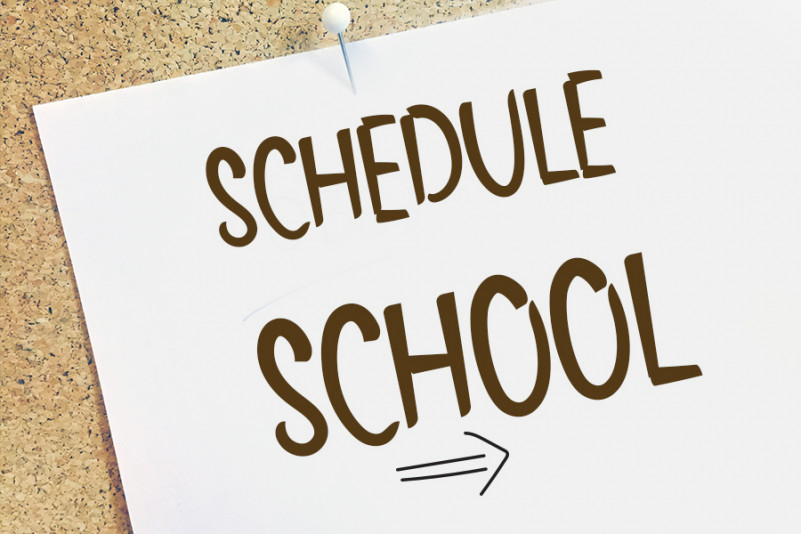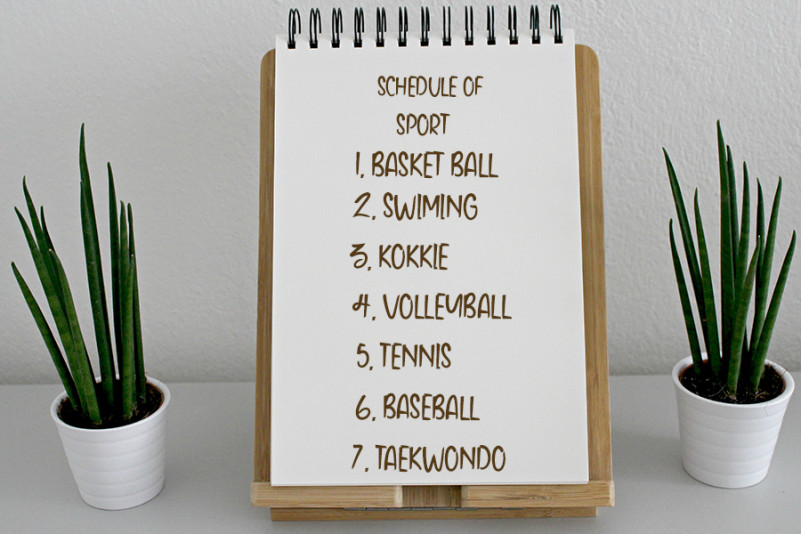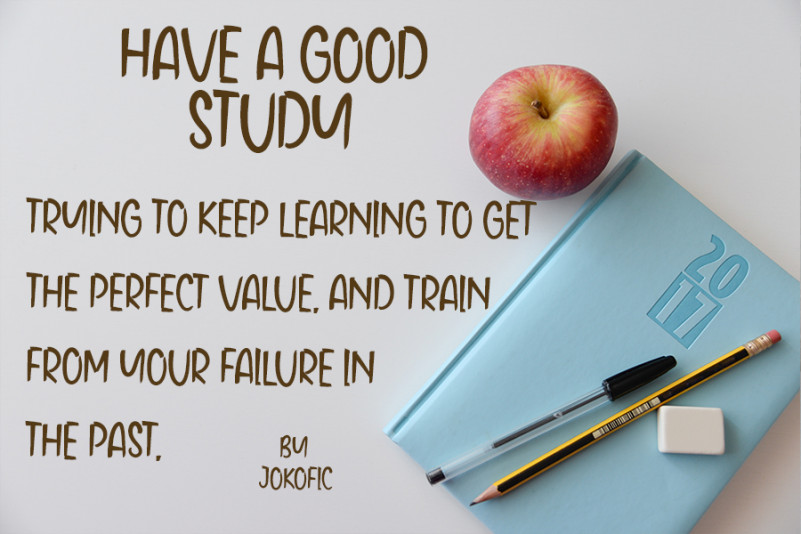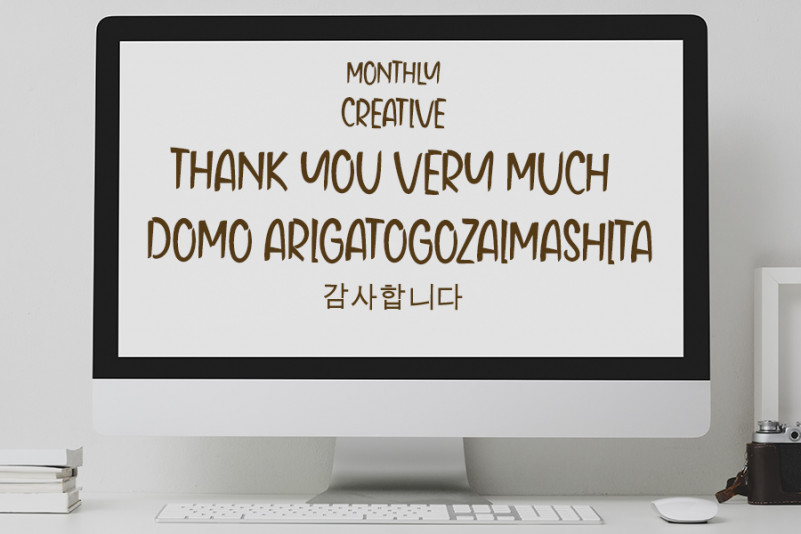
Monthly Display Font
Monthly Display Font is a simple and friendly handwritten font. It can be used for various purposes such as logos, invitations, headings, t-shirts, letterhead, signage, labels, news, posters, badges and so much more.